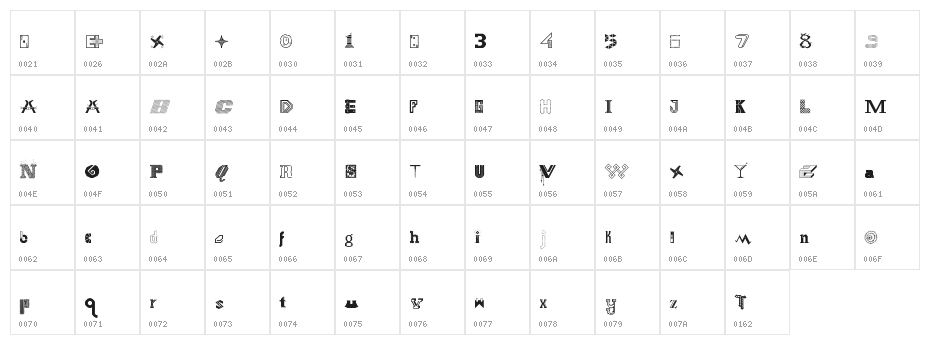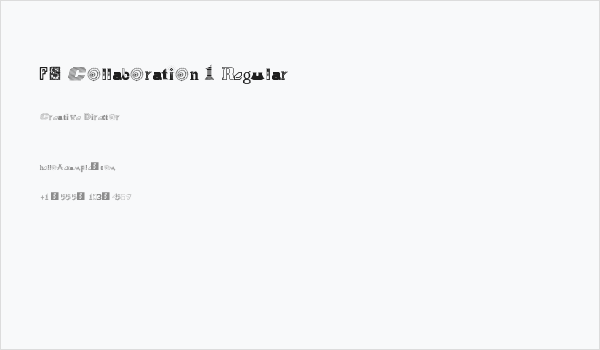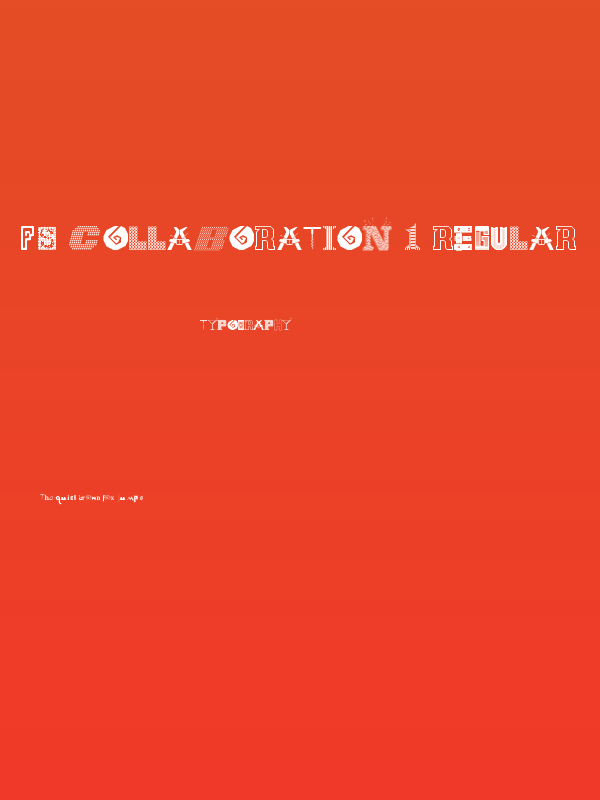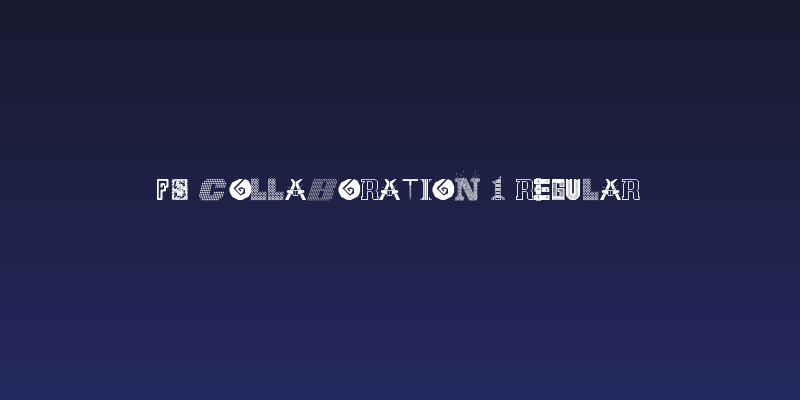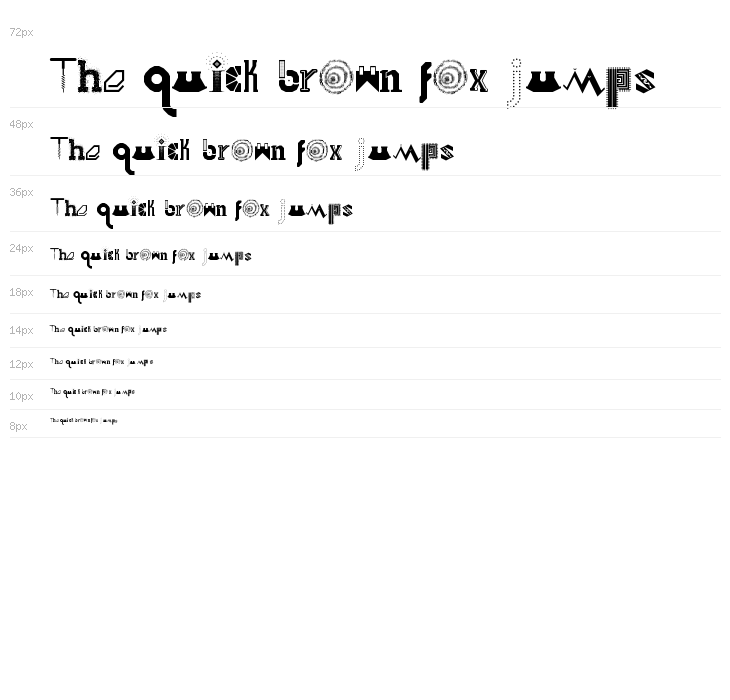
FS Collaboration 1 Regular Font
FS Collaboration 1 Regular Description
This font is a highly creative and eclectic display typeface that combines a variety of styles and textures within each character. The uppercase letters feature a mix of geometric patterns, dots, stripes, and unique artistic elements, making each letter distinct and visually engaging. The lowercase letters continue this theme with a playful and imaginative approach, incorporating swirls, lines, and abstract shapes. The numerals and special characters are equally diverse, showcasing a range of artistic influences and design techniques. This font is ideal for projects that require a bold and unconventional aesthetic, offering a unique visual experience.
Proposed ProjectsIdeal for artistic posters, album covers, creative branding, and unique event invitations.